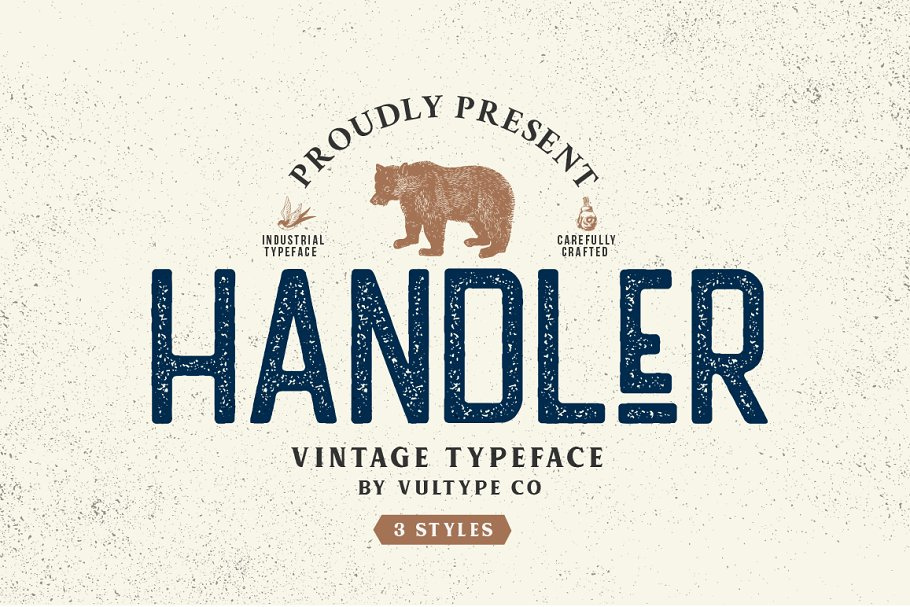
Handler Font
Handler Font is perfect for artisan branding, handmade product packaging, craft brewery labels, organic food brands, workshop signage, maker space materials, DIY project guides, small business identity, farmer's market displays, and authentic craft marketing materials.
Handler Font is exciting because it perfectly captures the authentic spirit of hands-on craftsmanship and artisanal expertise, creating a typeface that celebrates the beauty of human skill and dedication to quality. This font brings genuine authenticity and craftsman pride to any project, making it ideal for makers, artisans, and brands that want to convey skill, tradition, and personal touch in their work. Its robust character and honest design reflect the confidence of experienced craftspeople who take pride in their handiwork.
Handler Font family includes regular, medium, bold, and condensed weights, along with distressed variations and craft-inspired ornaments, providing designers with versatile tools for creating authentic artisan-focused typography and brand systems.
This distinctive craft typeface combines traditional handmade aesthetics with contemporary design functionality, making Handler Font Free Download a perfect choice for projects celebrating skilled craftsmanship and maker culture. The font's sturdy letterforms feature subtle imperfections and natural variations that mirror the authentic character of handmade goods and artisanal processes.
Whether you're designing craft workshop branding, artisan marketplace materials, or maker business identity, Handler Font delivers unmatched authenticity and craftsman credibility. The font performs exceptionally well across both digital platforms and traditional print applications where handmade quality and artisan expertise are valued attributes.
Creative professionals appreciate Handler Font for its ability to instantly communicate skill and craftsmanship while maintaining excellent readability across various applications. The font's authentic character makes it particularly effective for independent makers, craft businesses, and artisan marketplaces.
Each character reflects the confident work of skilled hands, featuring natural flow and purposeful construction that creates typography worthy of the finest handcrafted goods and artisan traditions.